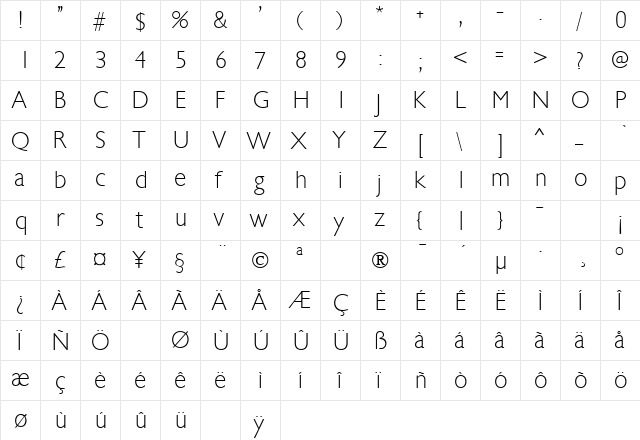
Stewardson Regular
Design Context for Stewardson Typeface
Stewardson takes a measured approach to typography — its balanced proportions and neutral character make it a reliable workhorse for both digital and print work.